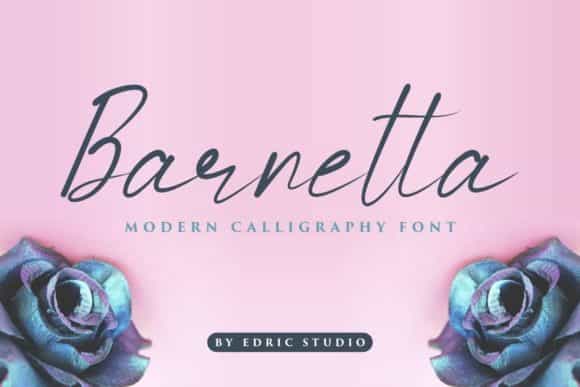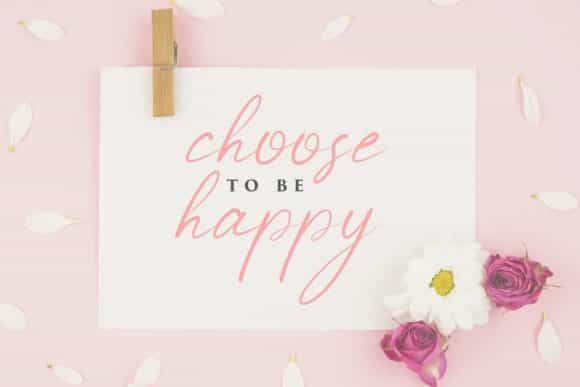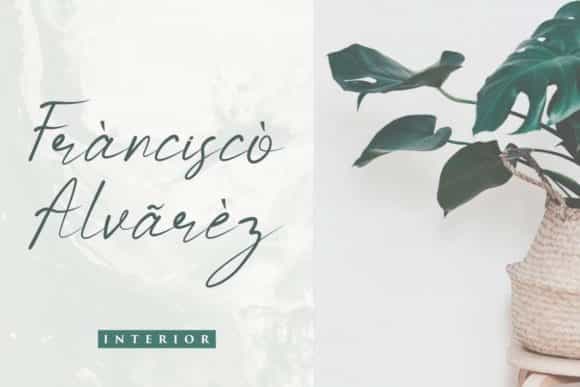
Barnetta Font – A new slant script with fantastic variety of options. An ideal complement to the professional designers font. This font will perfect for many different project ex: logo, blogging, quotes, branding and fashion are just some of the examples.